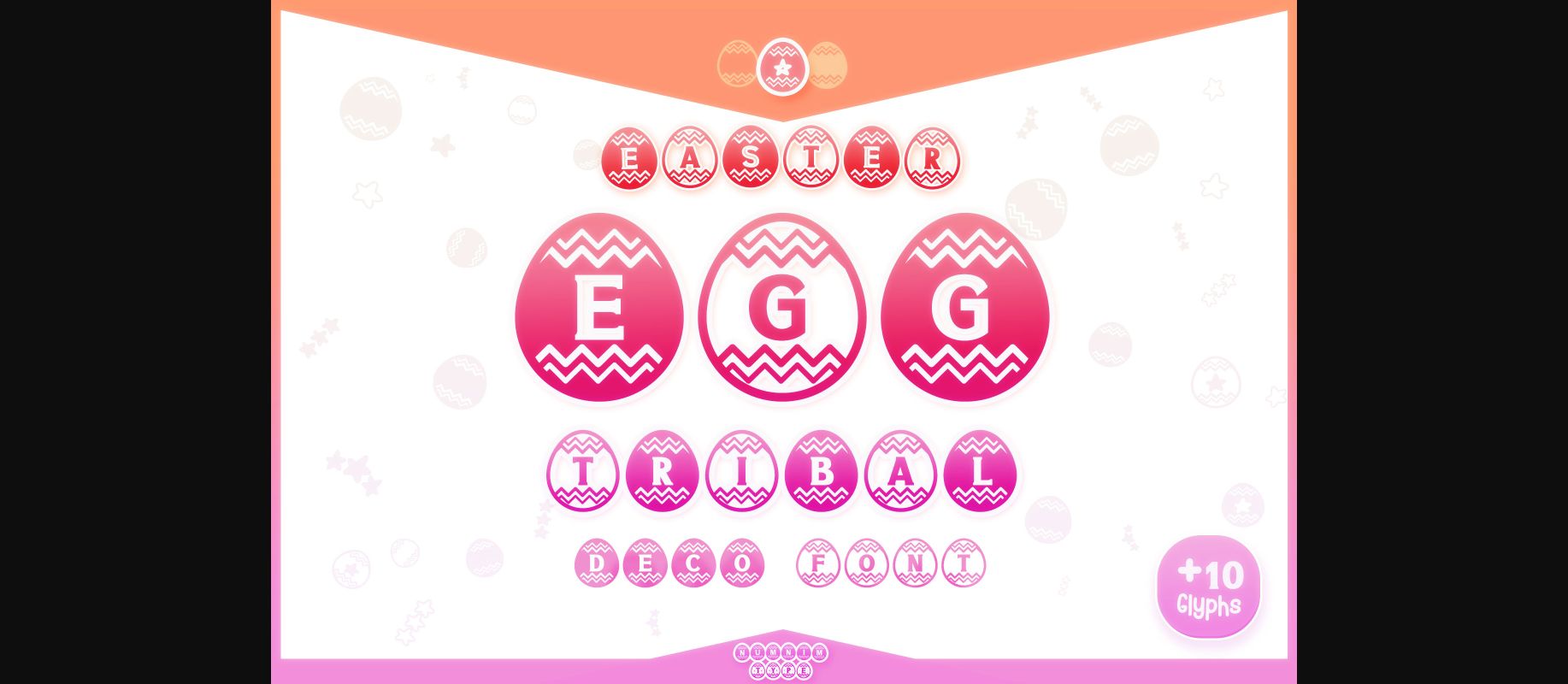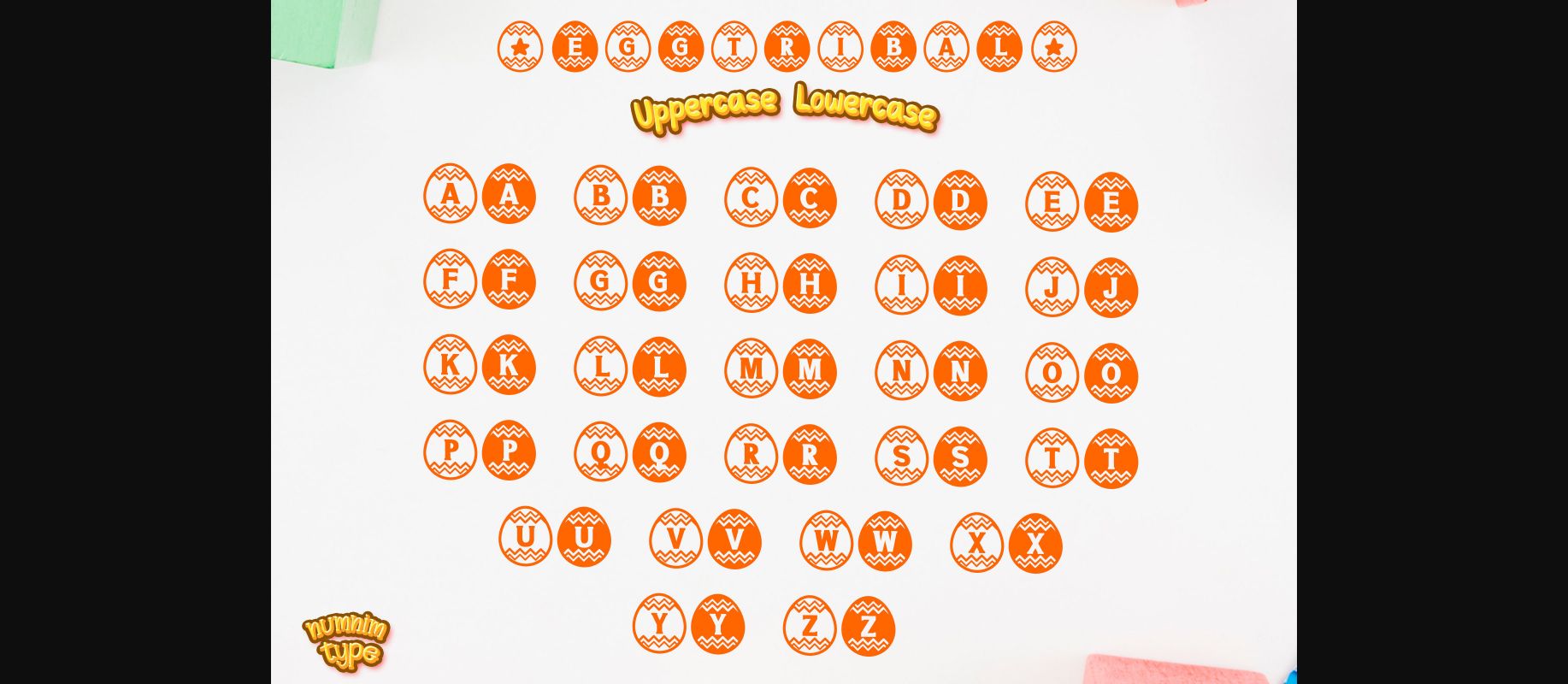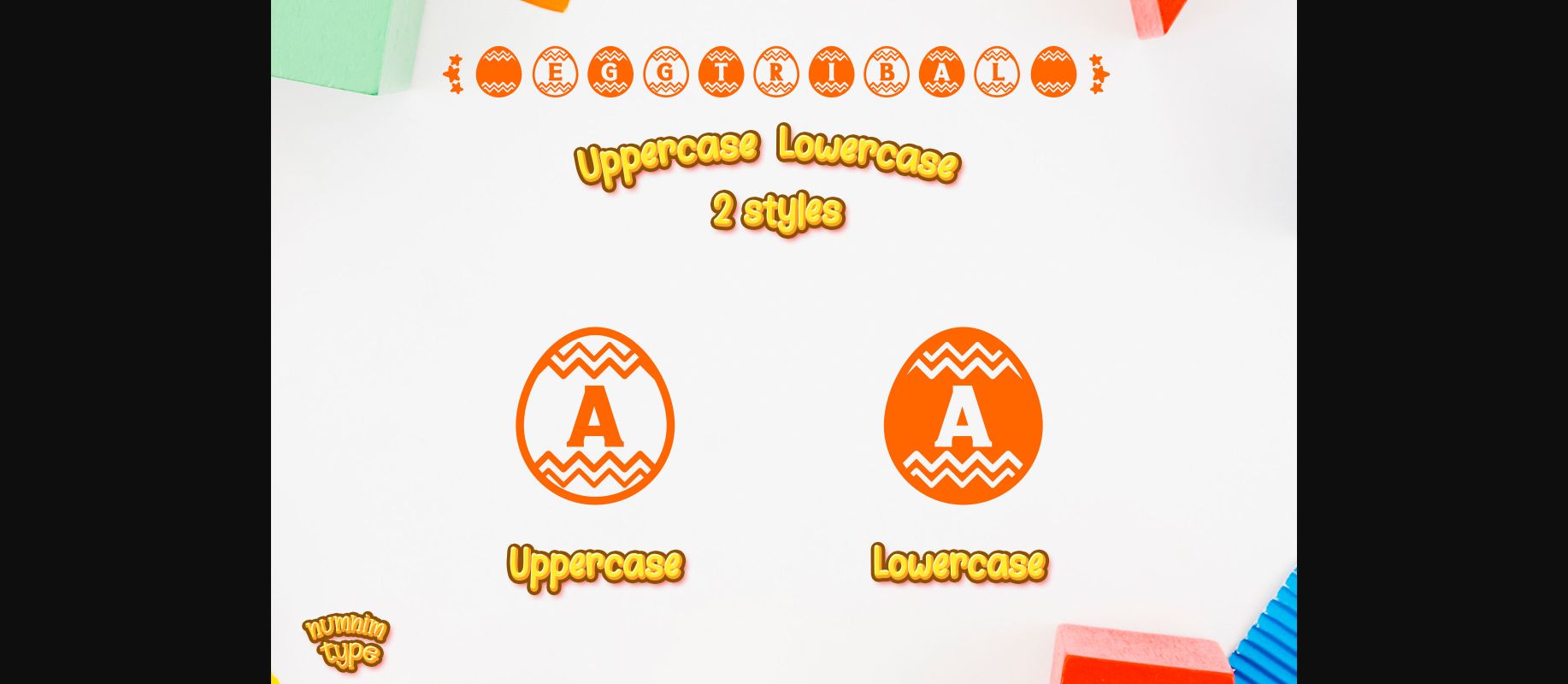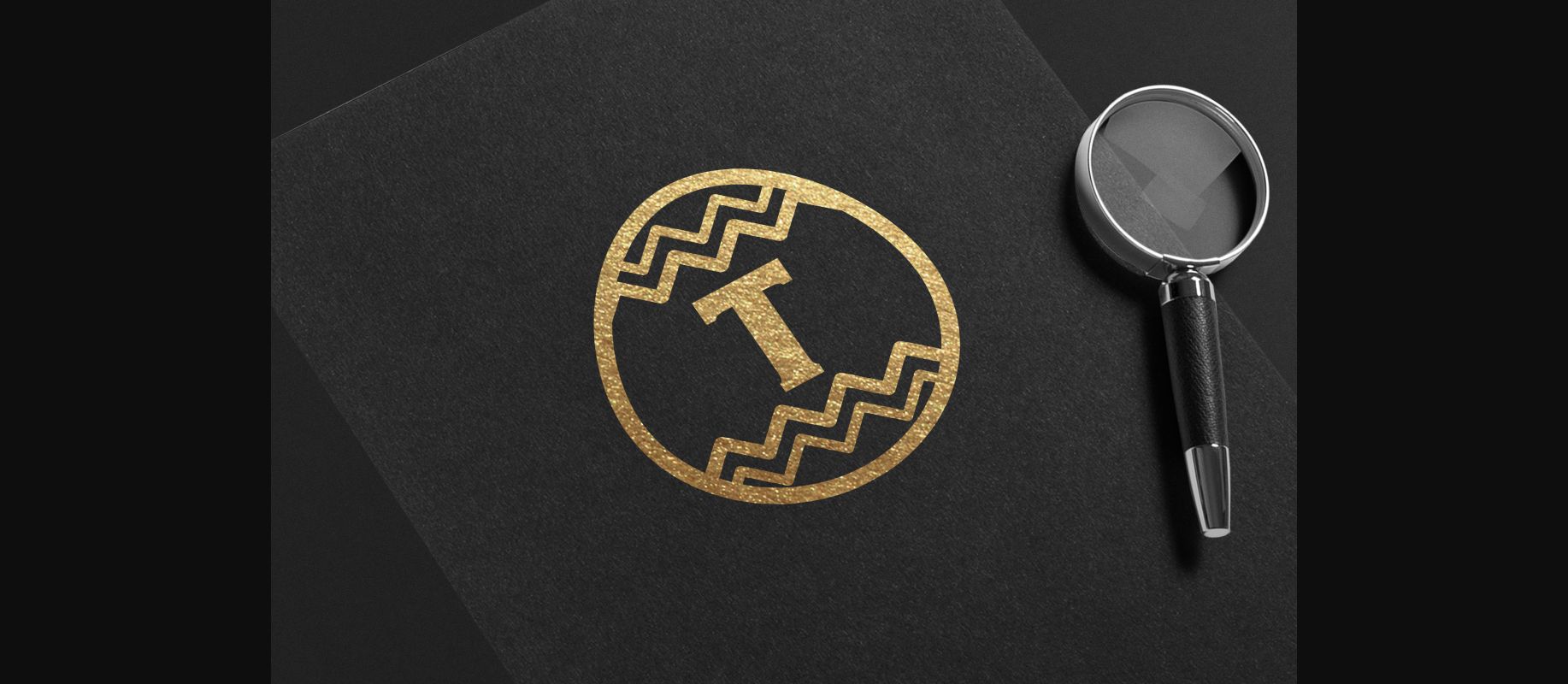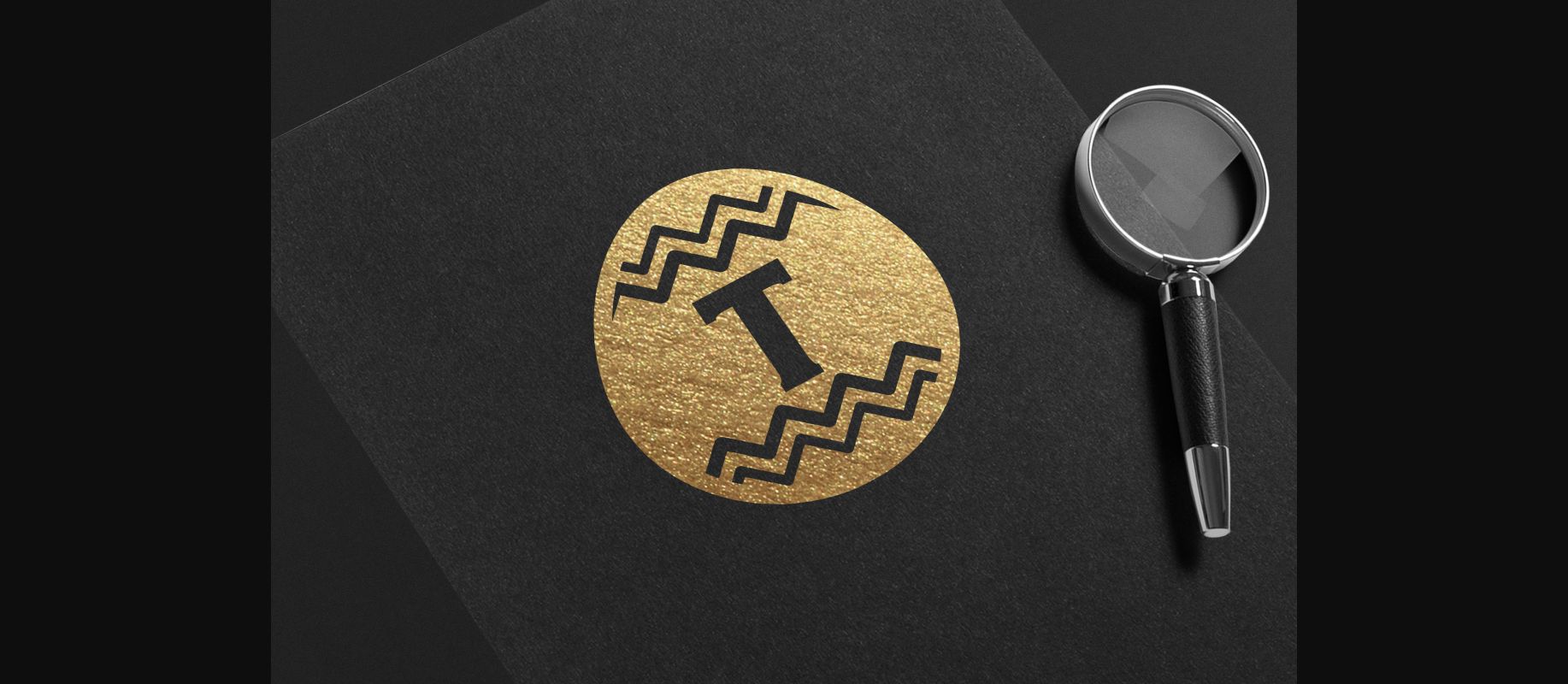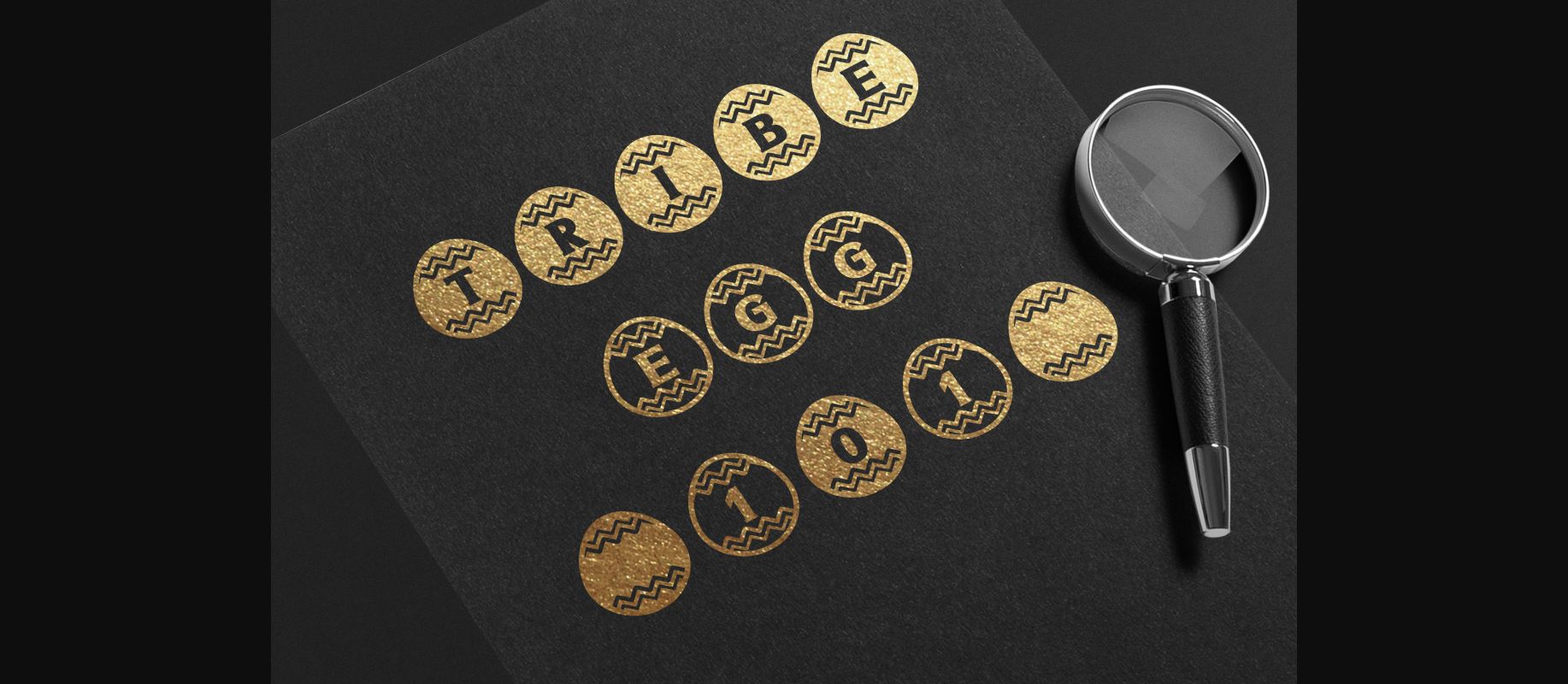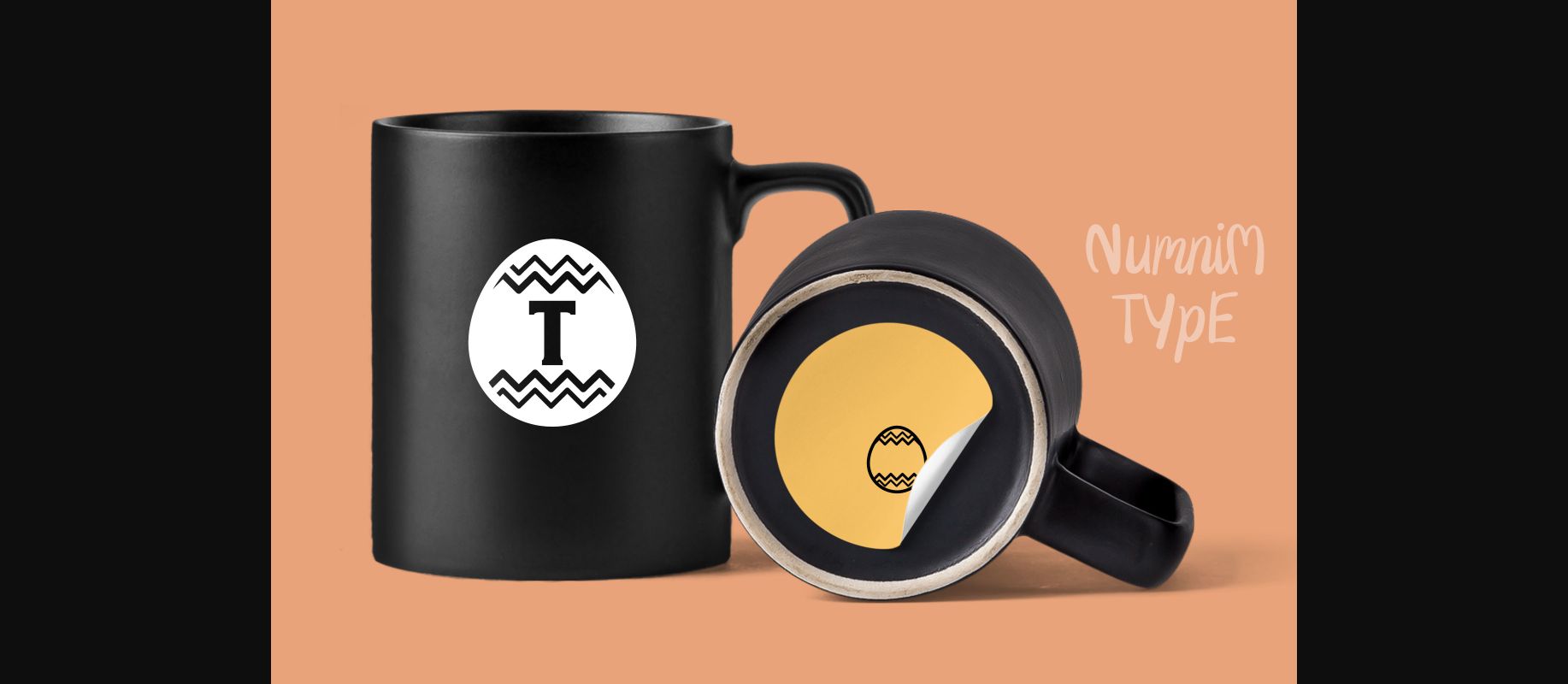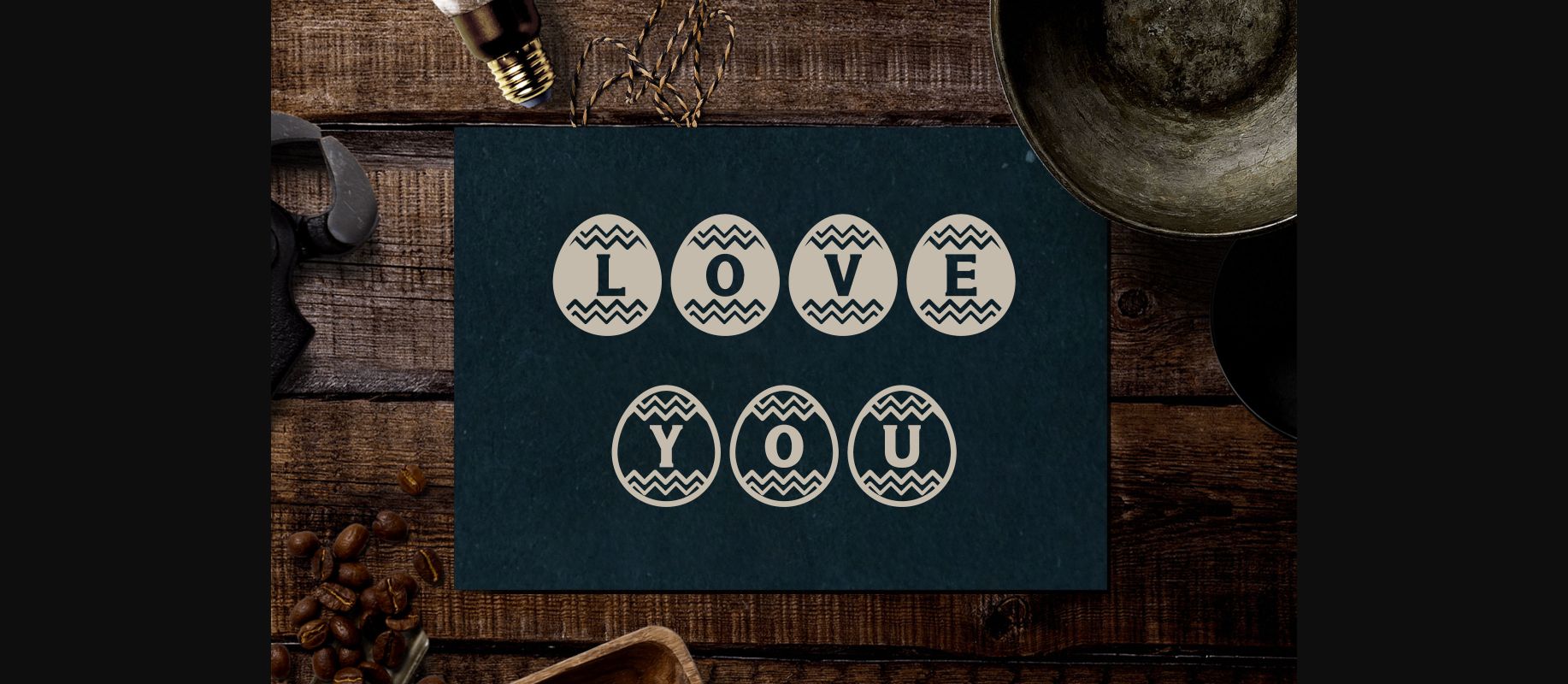
Easter Egg Tribal Font
About Easter Egg Tribal Font
Easter Egg Tribal is a cool and uniquely crafted decorative font. Its fun and playful characters make it the perfect font for stickers, mugs, t-shirts, ornaments, Billiard, Easter Event cards, event invitations, and many more!